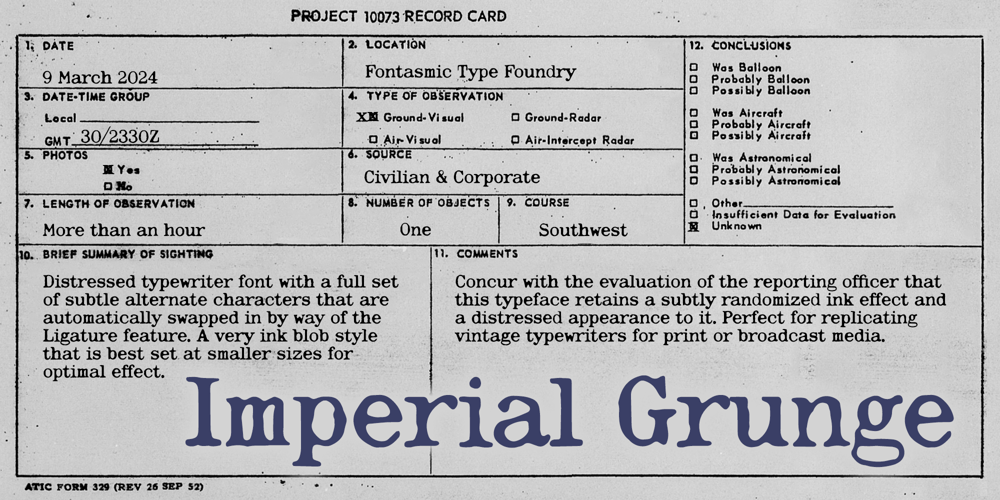
Imperial Grunge
Imperial Grunge font
Imperial Grunge Font Family was designed by Sawyer Hume and published by Fontasmic. Imperial Grunge contains 1 styles and family package options. The Imperial typewriter, overinked and slimy and grungy, in all it’s glory. A second a slightly different set of Capitals and lowercase characters is automatically swapped in by way of the Ligatures feature saving you all the time in the world getting a little bit of a randomized look. Best suited for smaller typesetting to recreate the ephemeral charm of yesteryear, but in the end, you use it how you like.